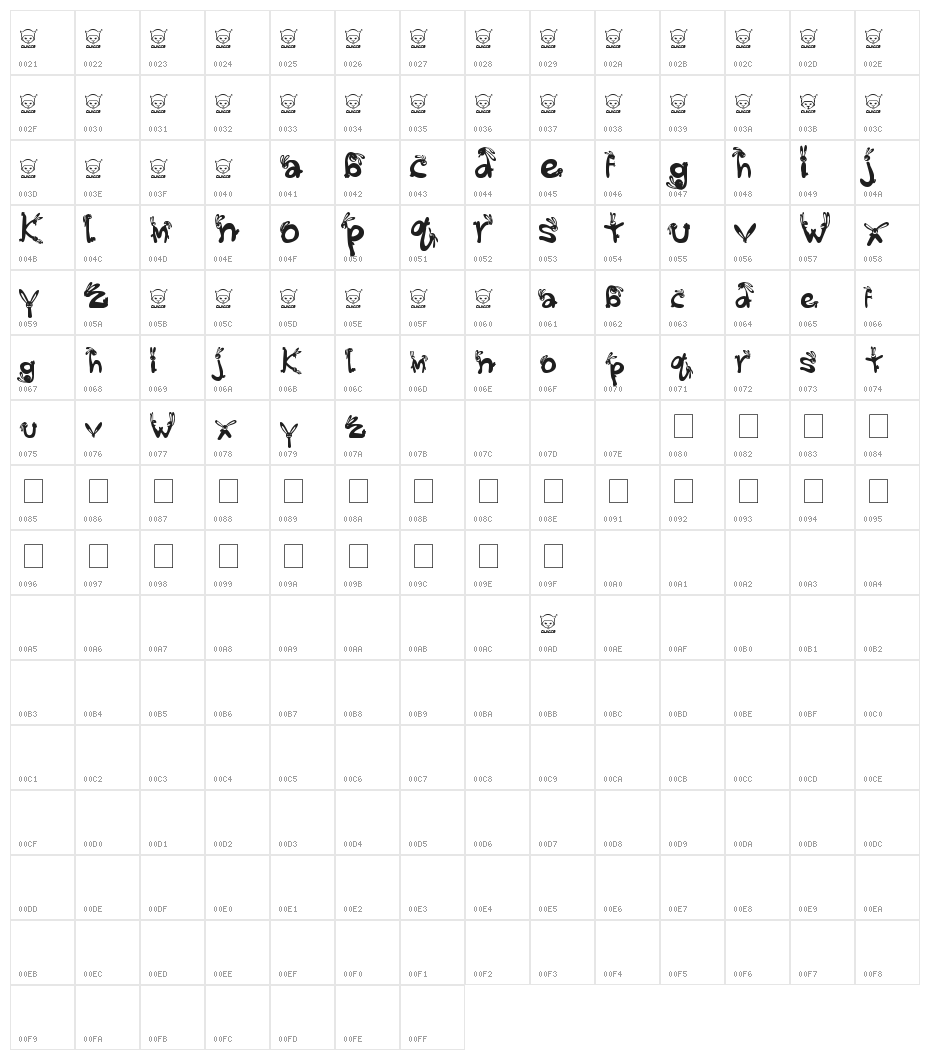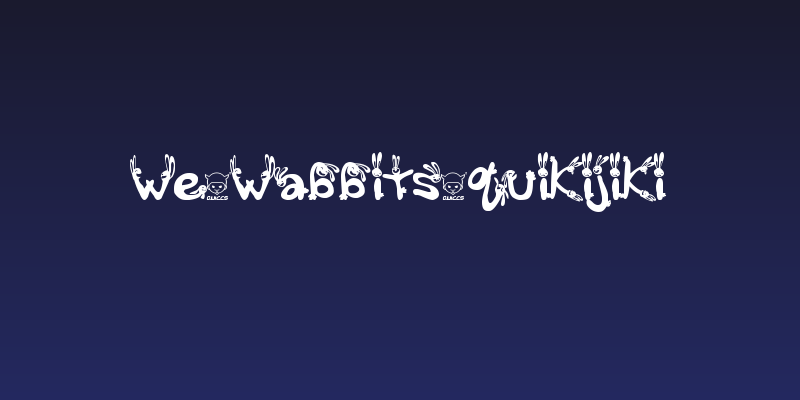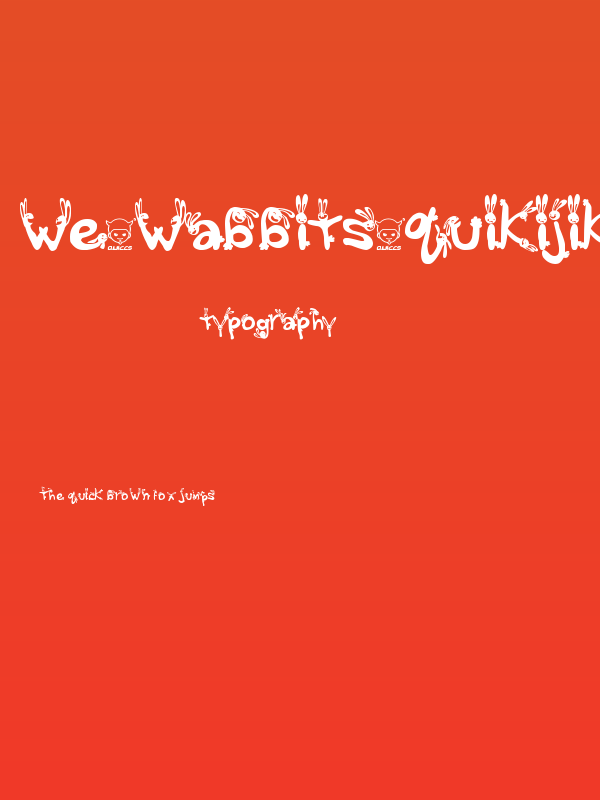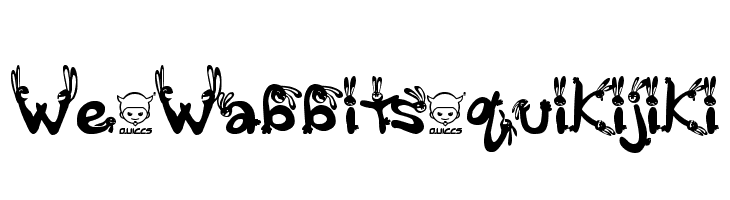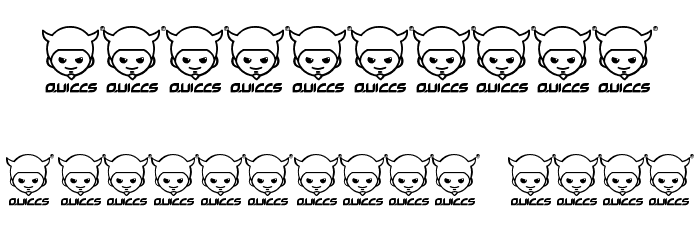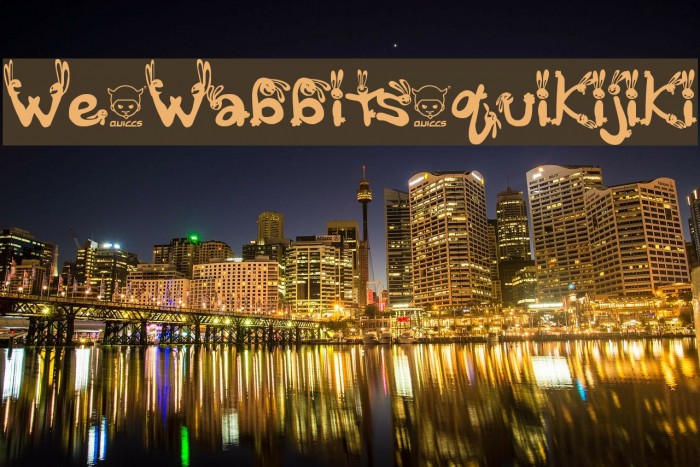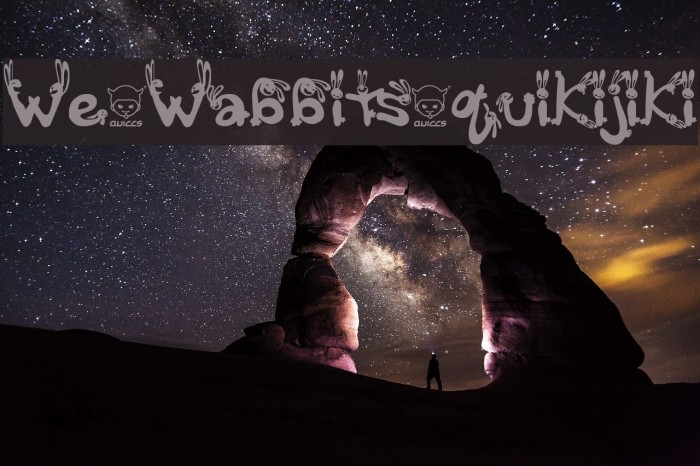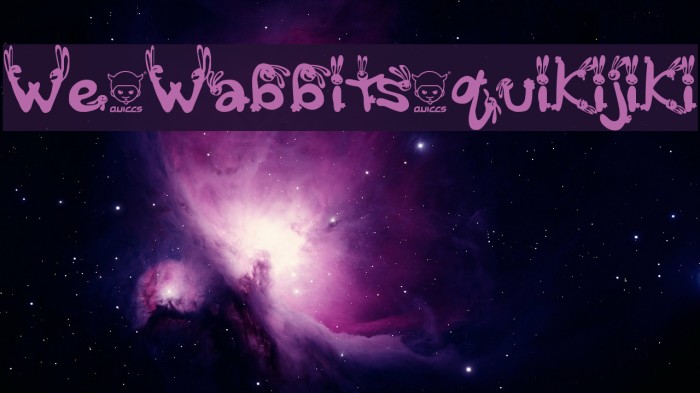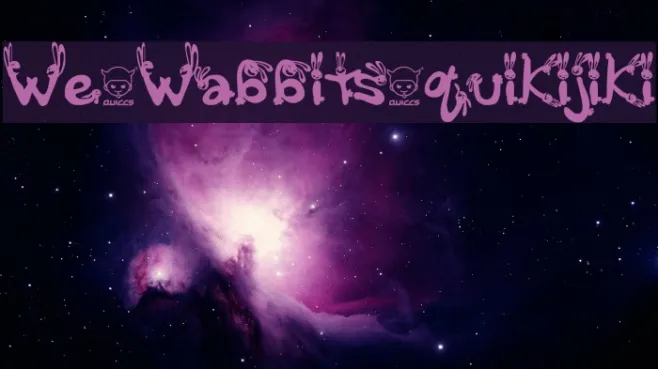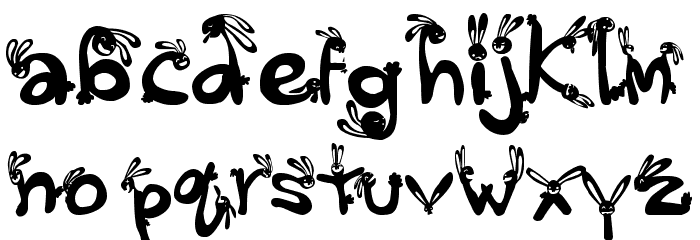
We_Wabbits_quikijiki Font
We_Wabbits_quikijiki Description
This playful and whimsical font features a unique design where each letter is integrated with a cartoonish rabbit motif. The characters are bold and rounded, with exaggerated features such as ears and tails that extend from the letters, creating a lively and dynamic appearance. The font maintains a consistent thickness throughout, giving it a cohesive look despite its decorative elements. The playful nature of the font makes it suitable for projects that require a fun and engaging aesthetic. It is not suitable for formal or professional documents due to its highly decorative style.
| Use Case | Logos, Posters, Invitations |
| Proposed Projects | Ideal for children's books, playful branding, party invitations, and whimsical posters. |